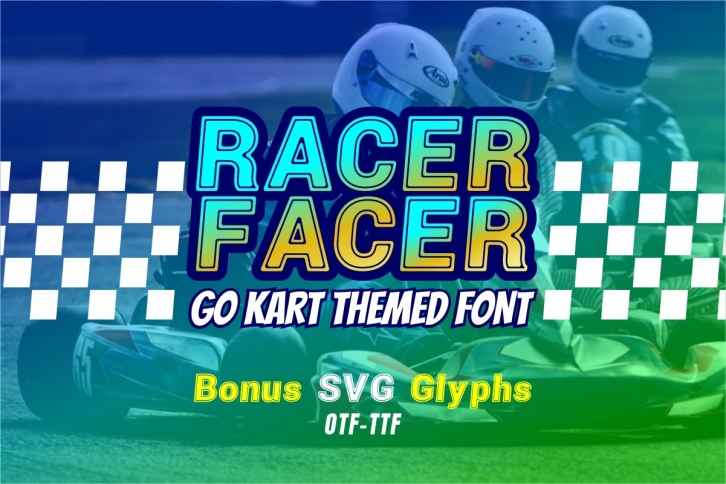
If you are looking for a racing-themed font, look no further. This display font would be perfect for any project that needs a racecar or racing theme. It is easy to use and would work well in games, posters, logos, or any design that needs to convey speed.
Race to the finish line with this decorative racing-themed font!